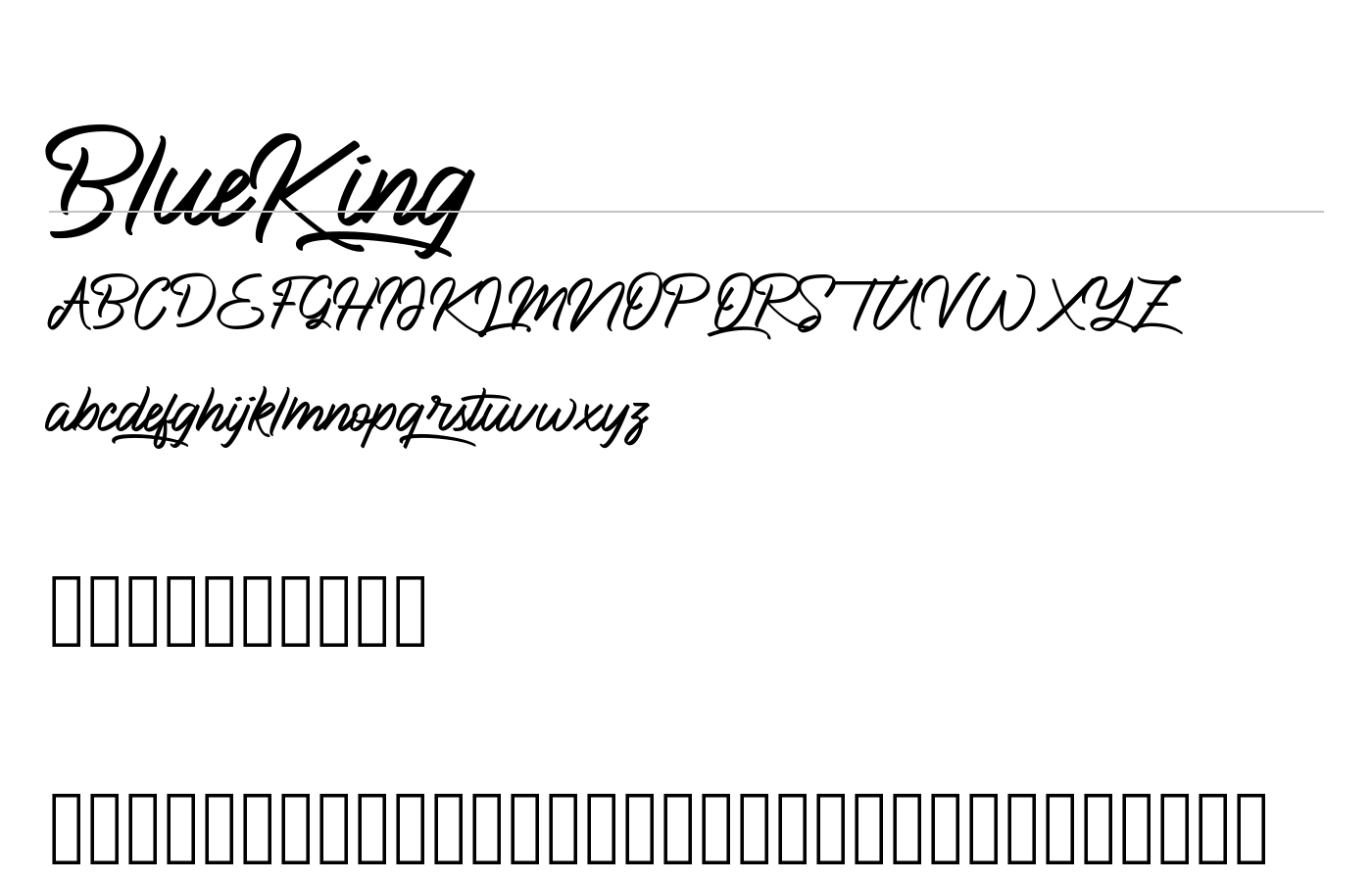
BlueKing is a distinctive script font with elegant, flowing strokes and playful underlines that bring a sense of creativity and warmth. Its smooth, slightly casual letterforms make it ideal for branding, invitations, and projects that seek a personal, handcrafted feel. This font works beautifully in logos and headlines where a touch of charm and personality is needed.
BlueKing Font